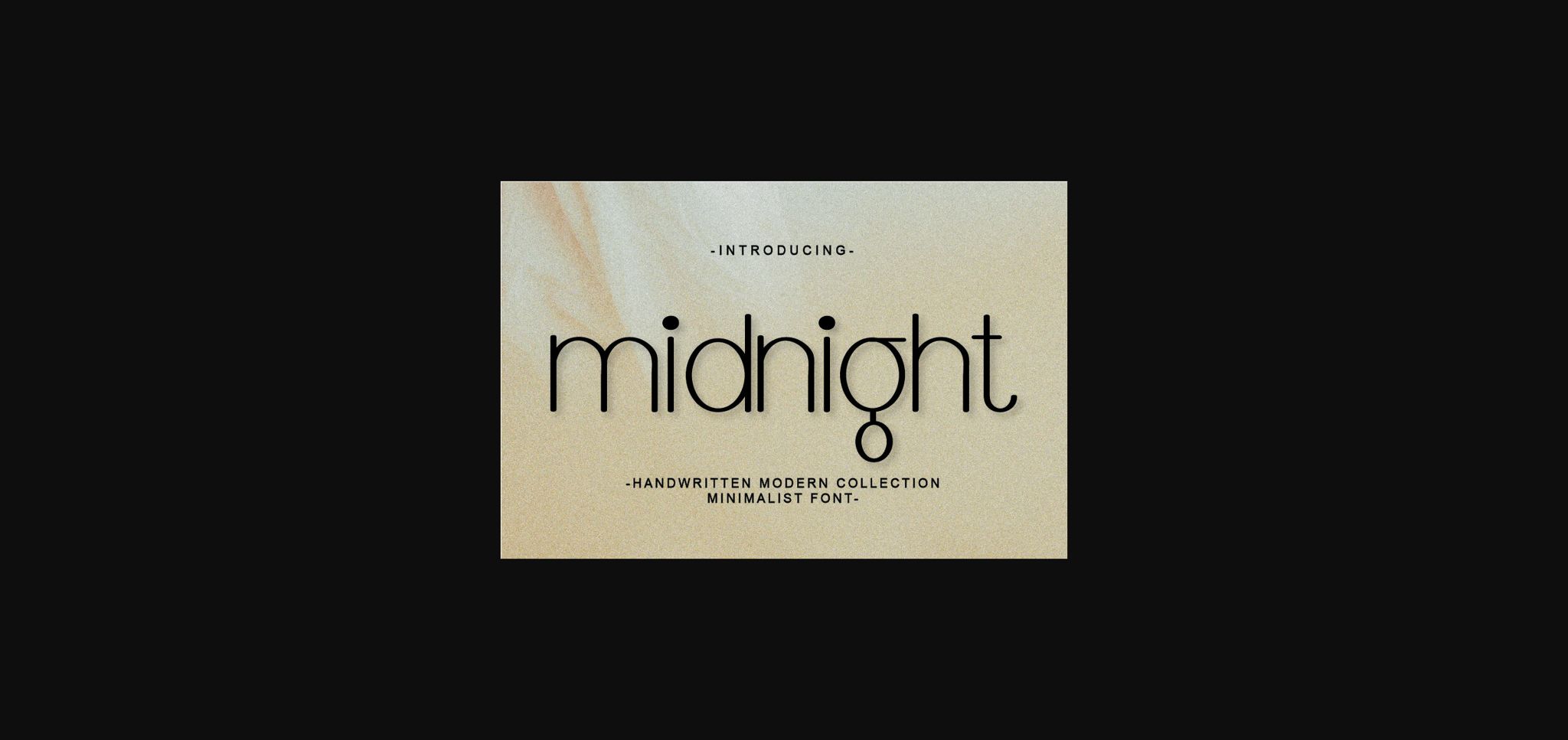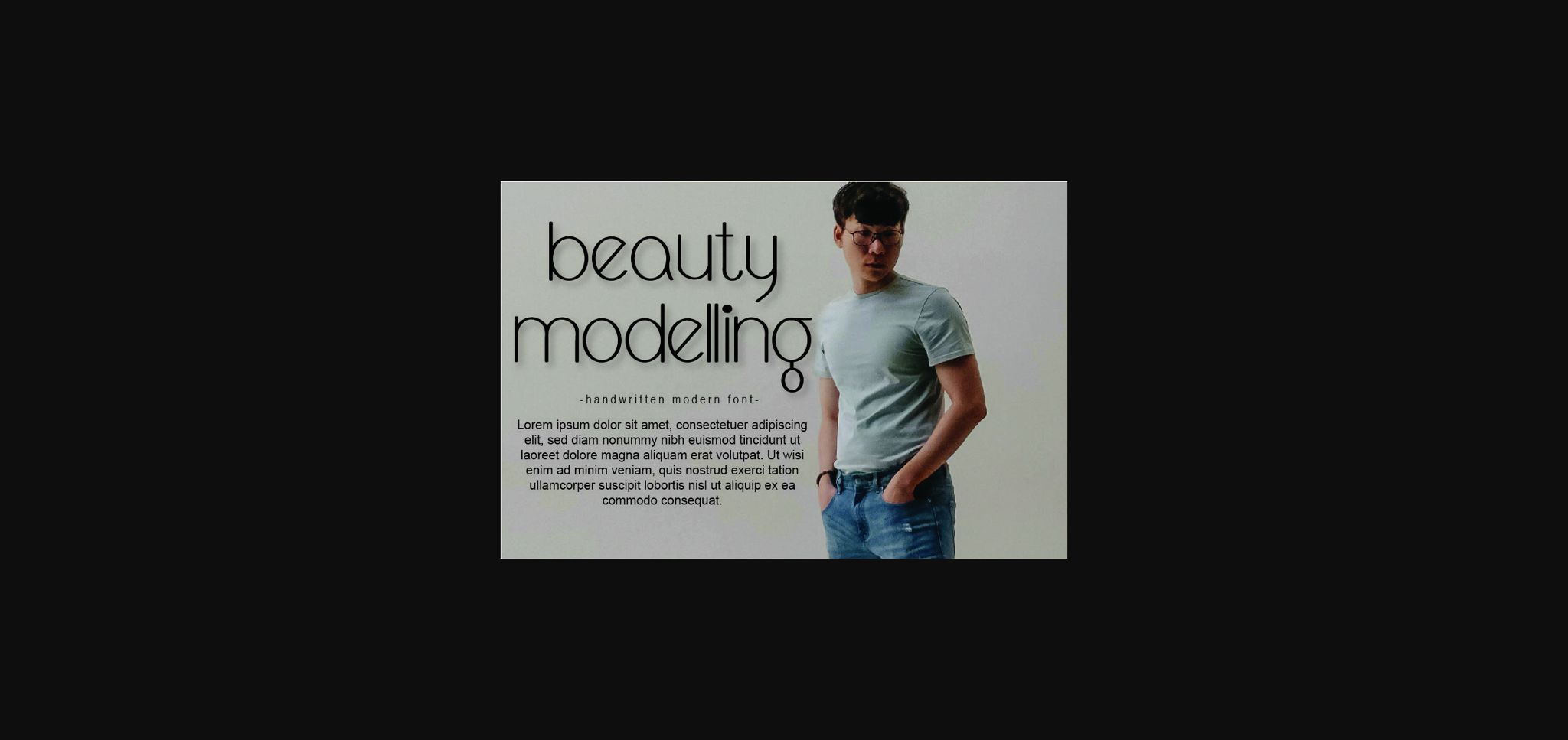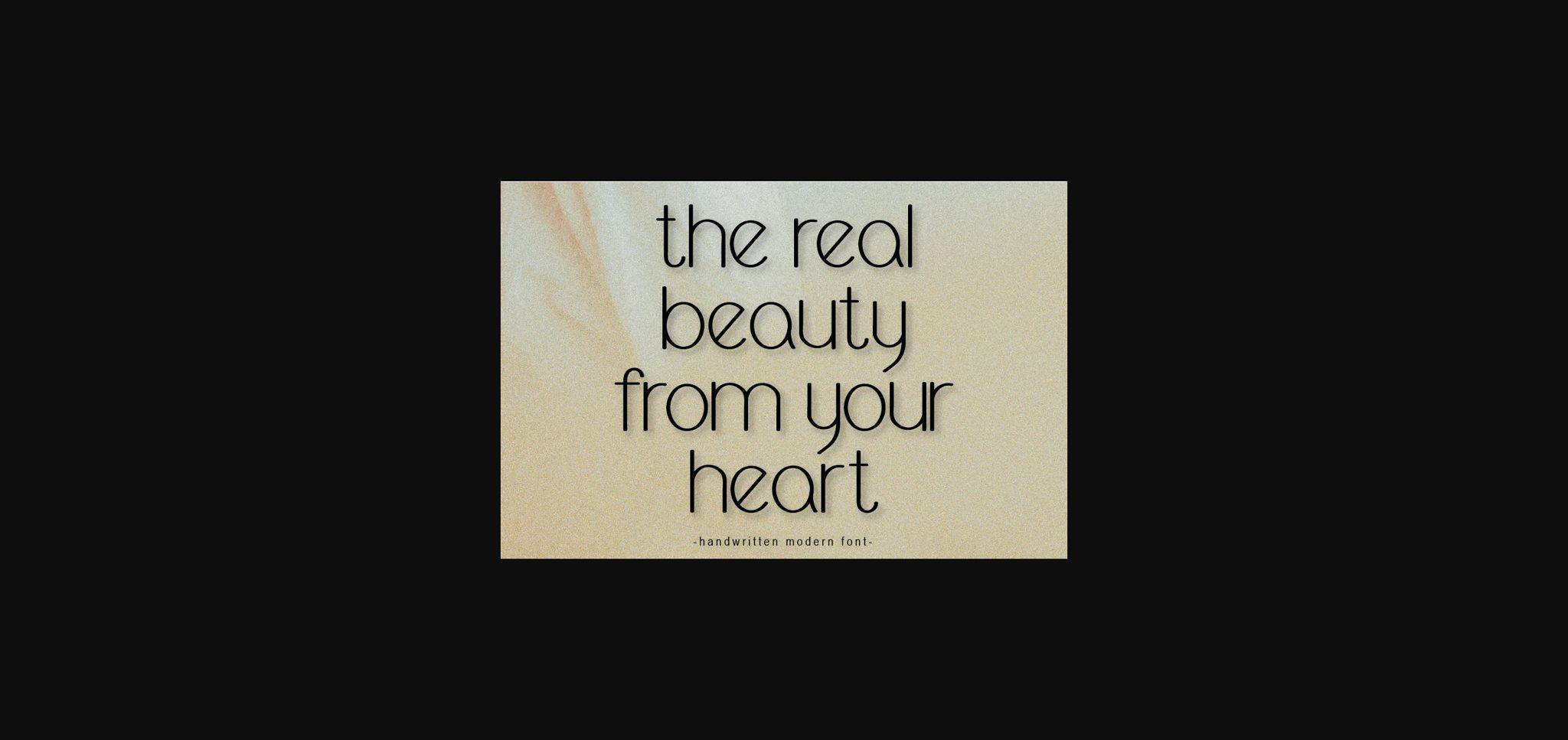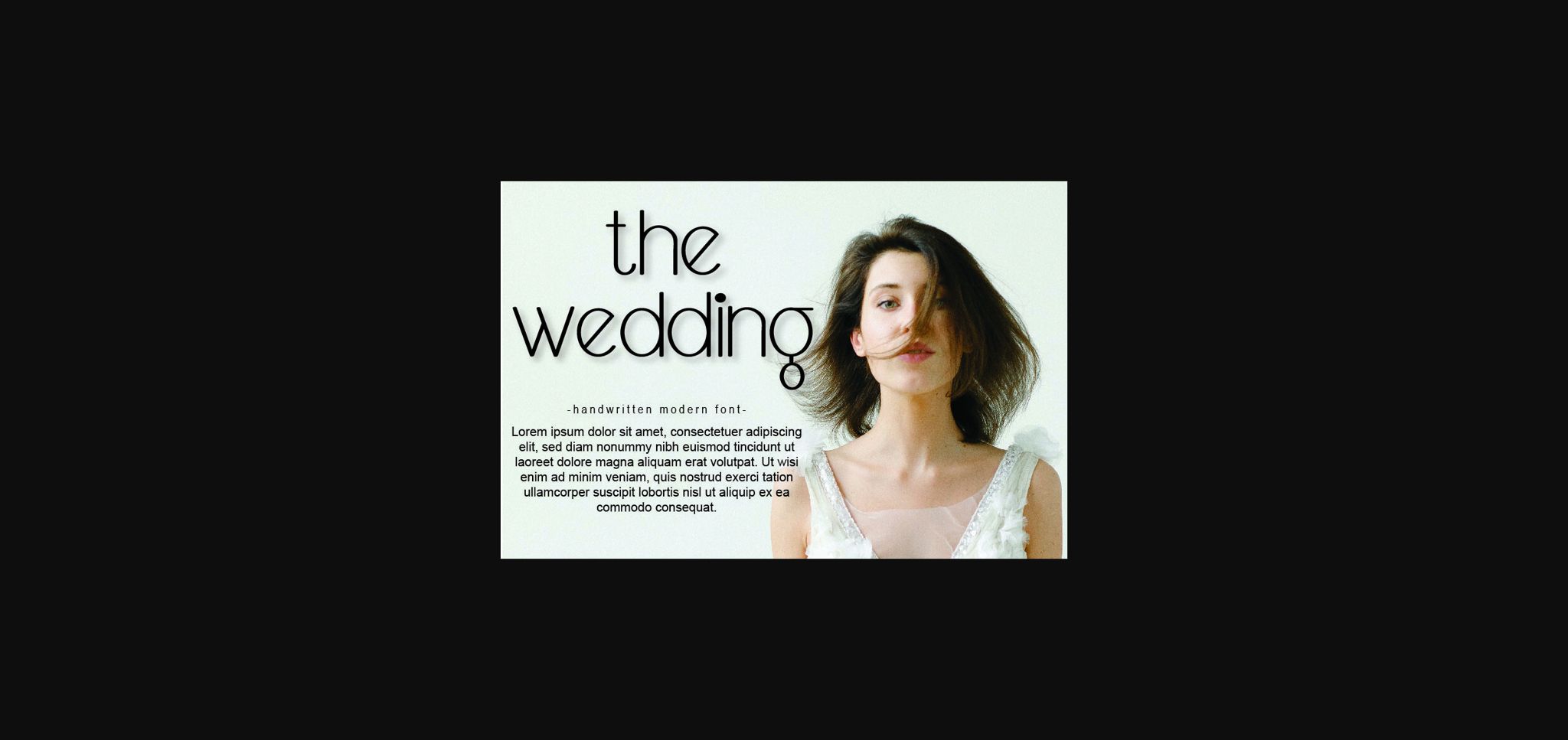
Midnight Font
About Midnight Font
Midnight is a simple sans-serif font designed for a clean retro look. With its balanced proportions, this font is perfect for creating a minimalist aesthetic in tattoos, logos, web design, and branding.